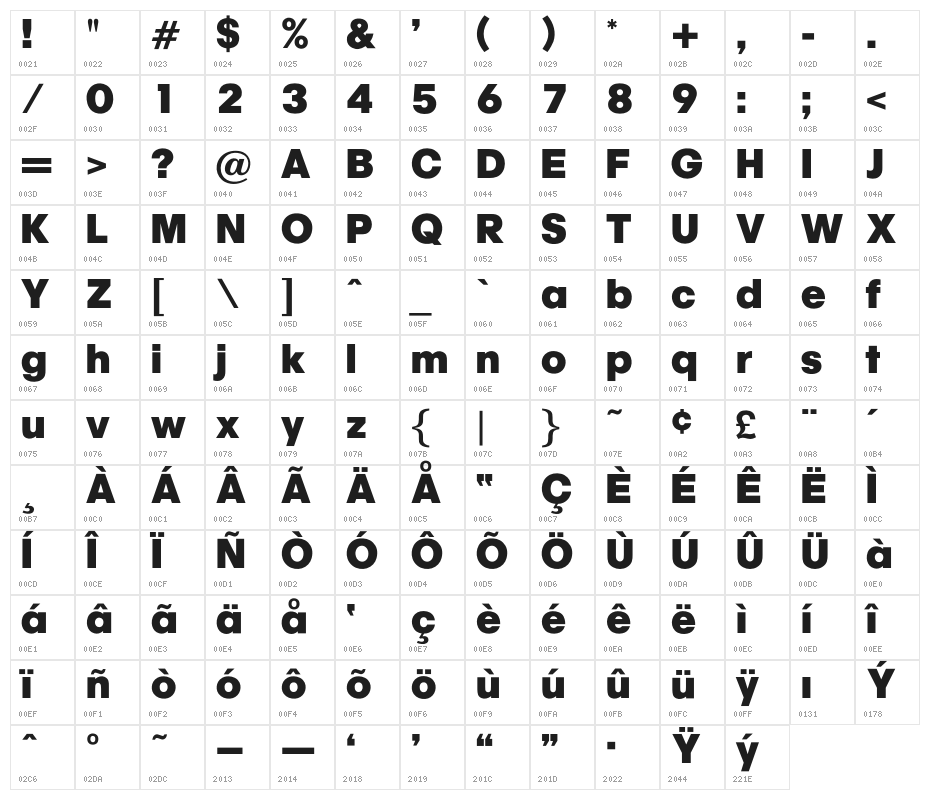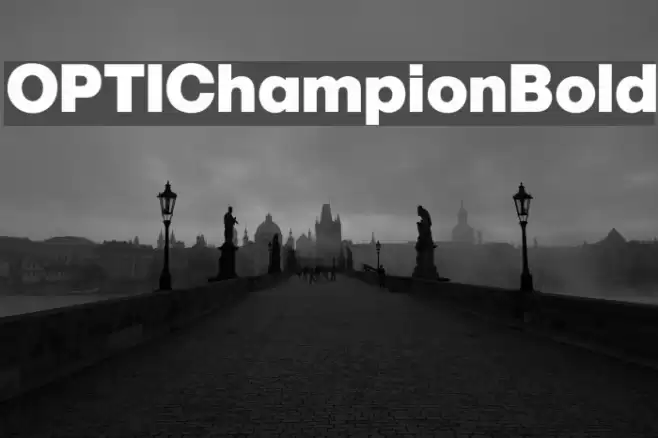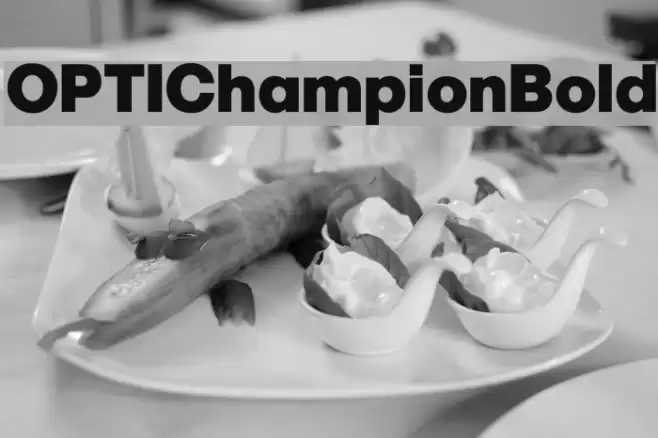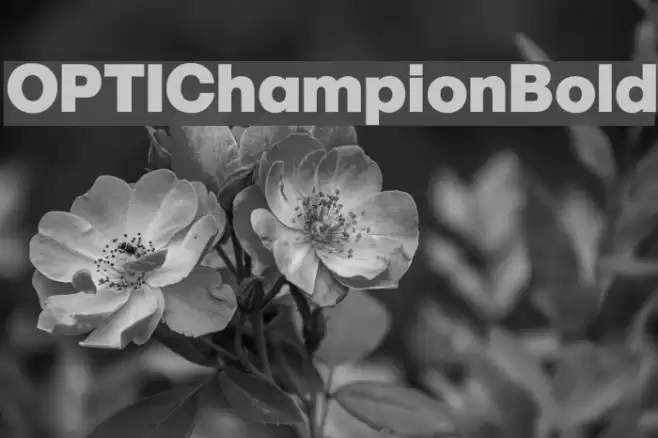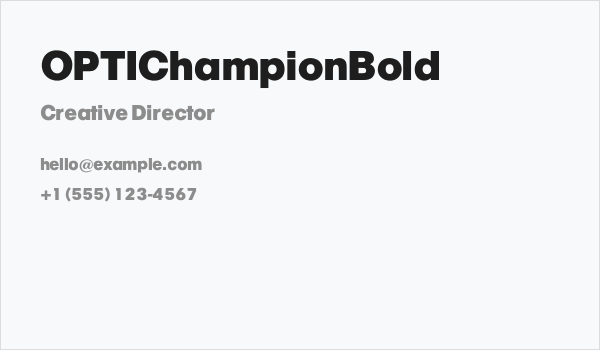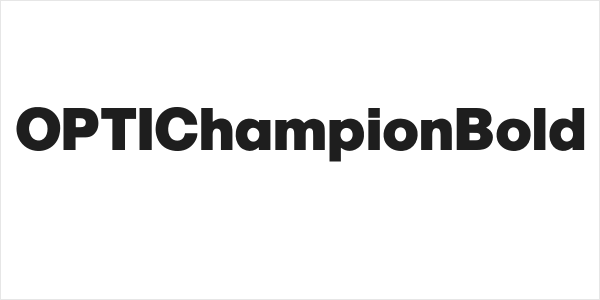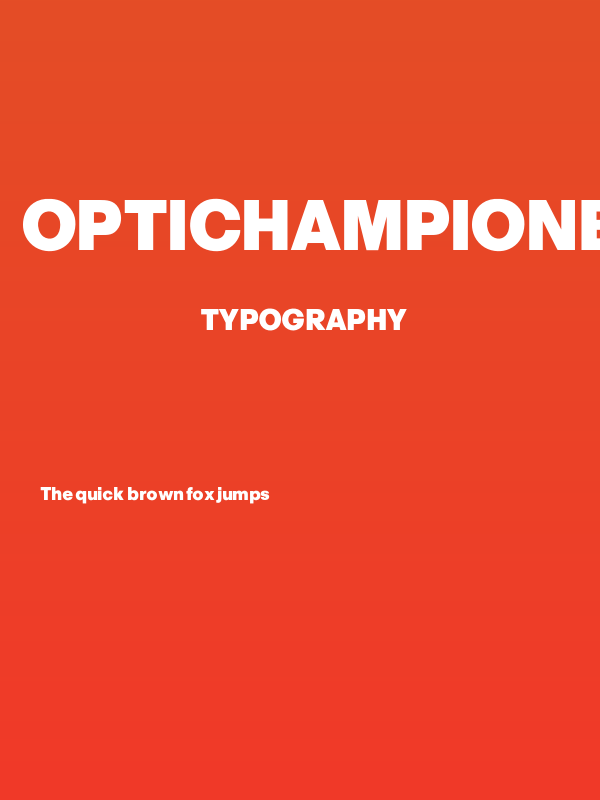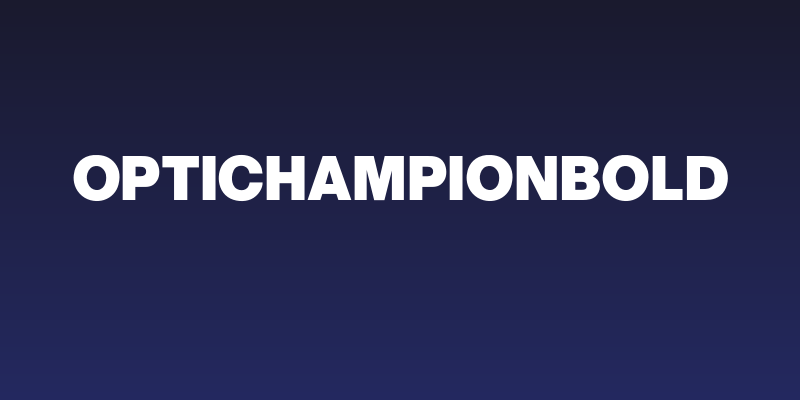
OPTIChampionBold Font
OPTIChampionBold Description
This font features a bold and impactful design, characterized by thick strokes and a strong presence. The uppercase and lowercase letters maintain a consistent weight, contributing to a uniform appearance. The numerals are equally bold, ensuring readability and emphasis. Special characters are designed with the same boldness, making them stand out prominently. The overall style is modern and assertive, suitable for making statements. The font's clean lines and lack of serifs give it a contemporary feel, while its boldness ensures it captures attention.
| Proposed Projects | Ideal for headlines, posters, branding, and any design requiring a strong visual impact. |